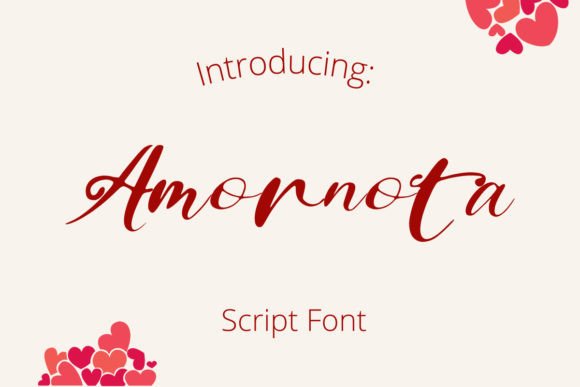
The Elegance of Amornota Font: A Designer’s Delight
I still remember the time I was working on a high-end wedding invitation project, and my client asked me to create a sophisticated and elegant design that would reflect their refined taste. I spent hours scouring through font libraries, but nothing seemed to fit the bill. That was when I stumbled upon the Amornota Font. Its curved and cursive nature immediately caught my eye, and I knew I had found the perfect fit. In this article, I’ll share my experience with Amornota Font, its features, and how to make the most of it in your designs.
- ✨ The elegant and sophisticated look that adds a touch of refinement to any design
- ✅ The versatility of the font, making it suitable for formal invitations, high-end branding, and more
- 💫 The beautiful swashes and ligatures that add a creative touch to your text
- 📈 The font’s ability to convey a sense of luxury and style, perfect for designs that require a high-end feel
While Amornota Font is an excellent choice for many designs, there are a few things to keep in mind:
- ⚠️ The font can be a bit challenging to read in small sizes, so it’s best to use it for headlines or titles
- 🤔 Some of the swashes and ligatures may not work well in all contexts, so it’s essential to experiment and find the right combination for your design
The Designer Inspiration Behind Amornota Font
Amornota Font was designed with the intention of creating a elegant and sophisticated typeface that would evoke a sense of refinement and style. The designer drew inspiration from classic calligraphy and typography, combining traditional techniques with modern sensibilities. The result is a font that’s both timeless and contemporary, perfect for designs that require a touch of luxury and elegance.
| Font Name | Amornota Font |
| Author | Sparkylicious |
Q: What is the best use for Amornota Font?
A: Amornota Font is perfect for formal invitations, high-end branding, and designs that require a sophisticated and elegant look.
Q: Is Amornota Font difficult to read?
A: Amornota Font can be a bit challenging to read in small sizes, so it’s best to use it for headlines or titles.
Q: Can I use Amornota Font in digital designs?
A: Yes, Amornota Font is suitable for digital designs, including websites, social media graphics, and more.